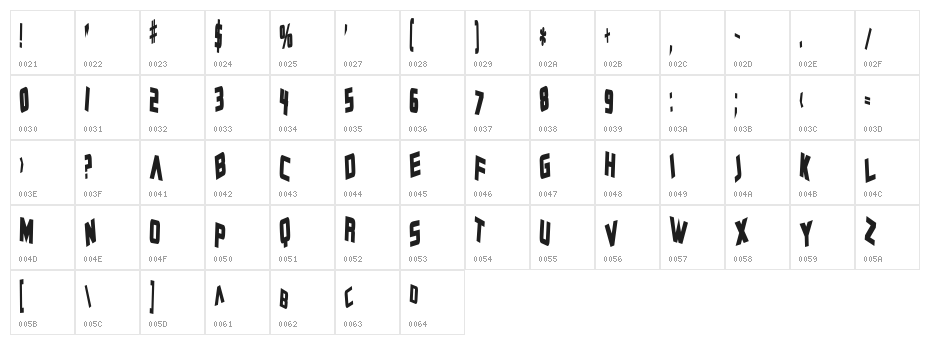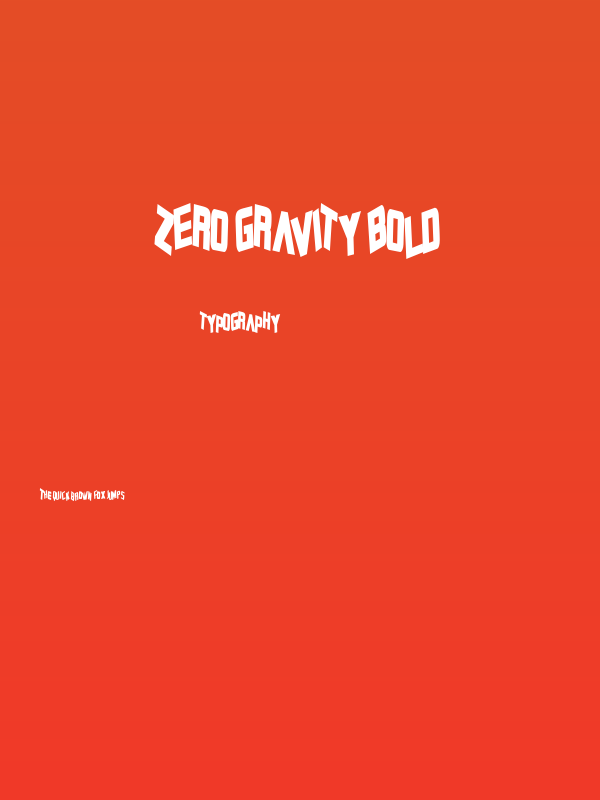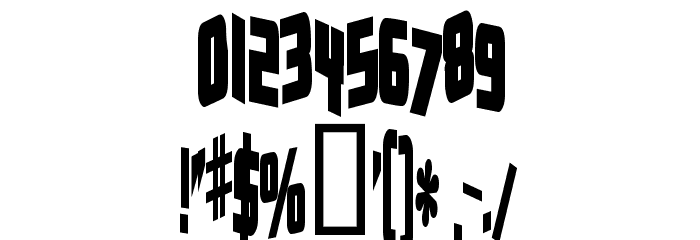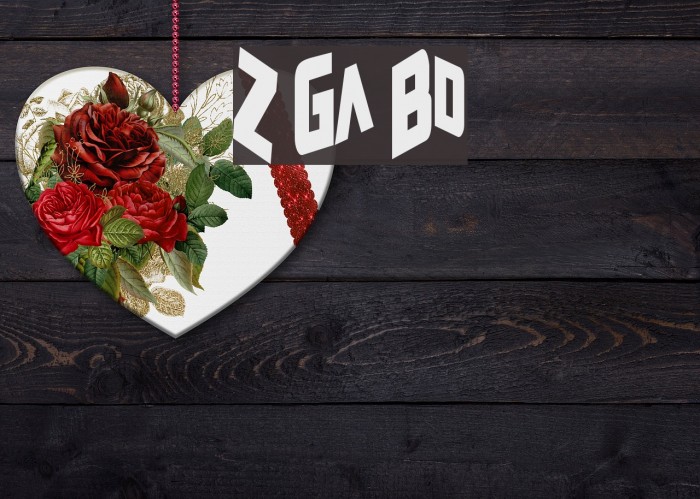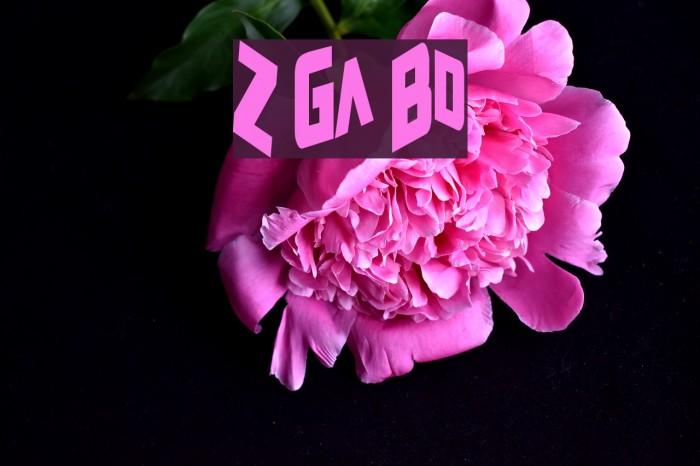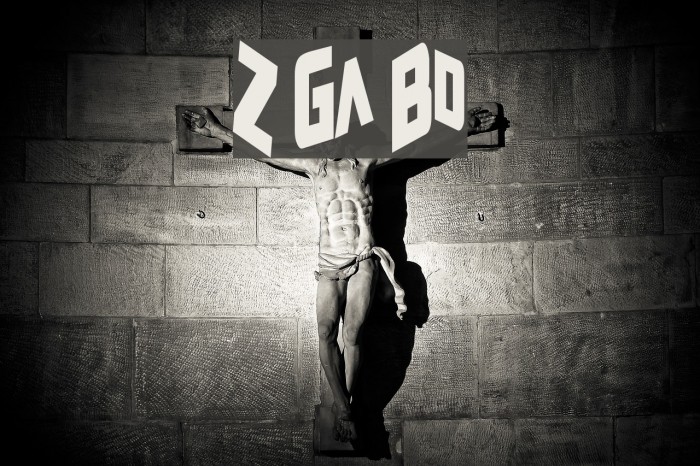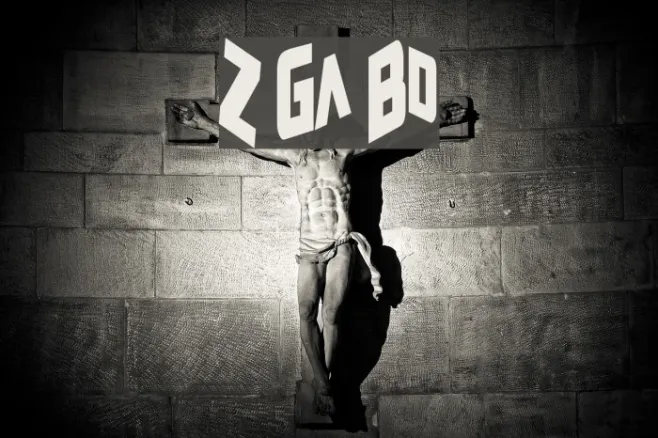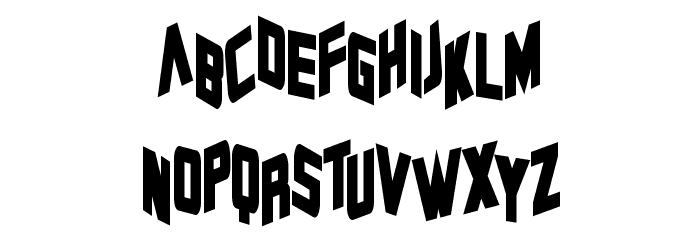
Zero Gravity Bold Font
Zero Gravity Bold Description
This font features a bold and dynamic design with a futuristic and angular appearance. The characters are heavily stylized, with sharp edges and a three-dimensional effect that gives them a sense of movement and depth. The uppercase and lowercase letters maintain a consistent style, with a slightly condensed form that enhances their boldness. The numbers and special characters are equally striking, following the same angular and bold design. This font is ideal for projects that require a strong visual impact and a modern, edgy aesthetic.
| Proposed Projects | Perfect for sci-fi themed posters, video game titles, and branding that requires a strong, modern impact. |